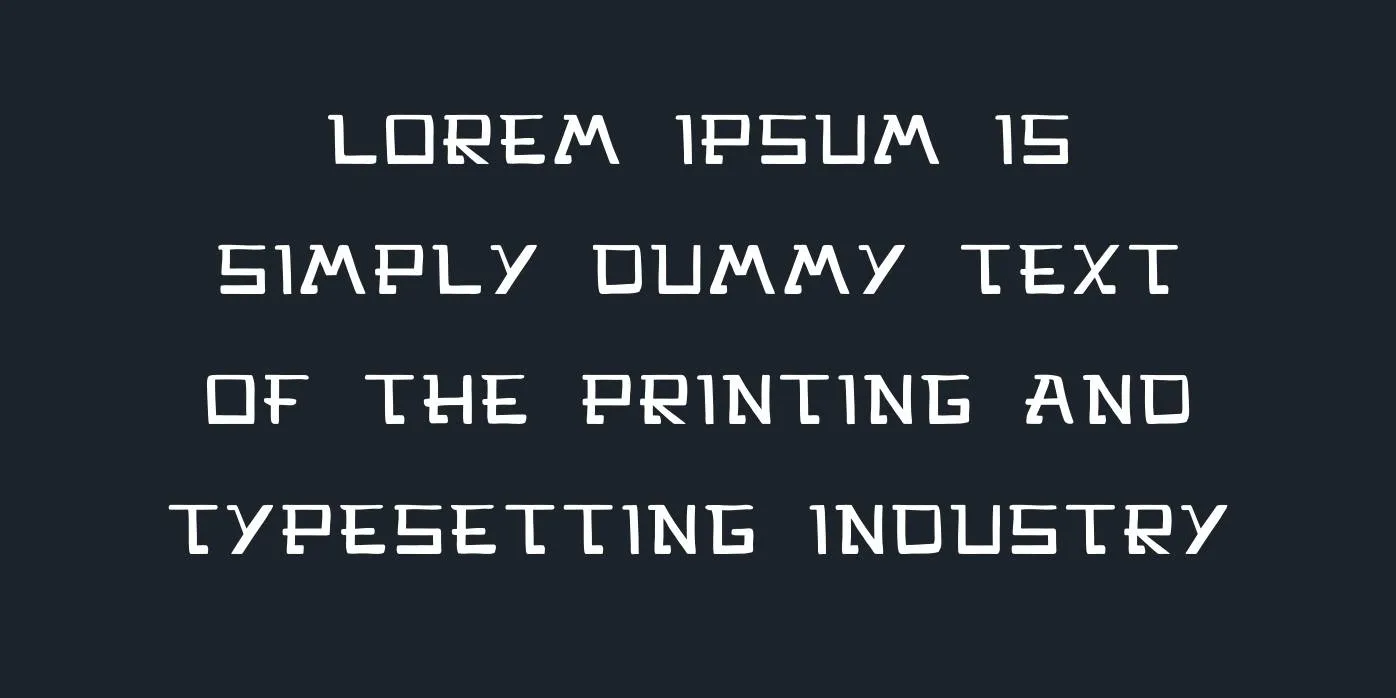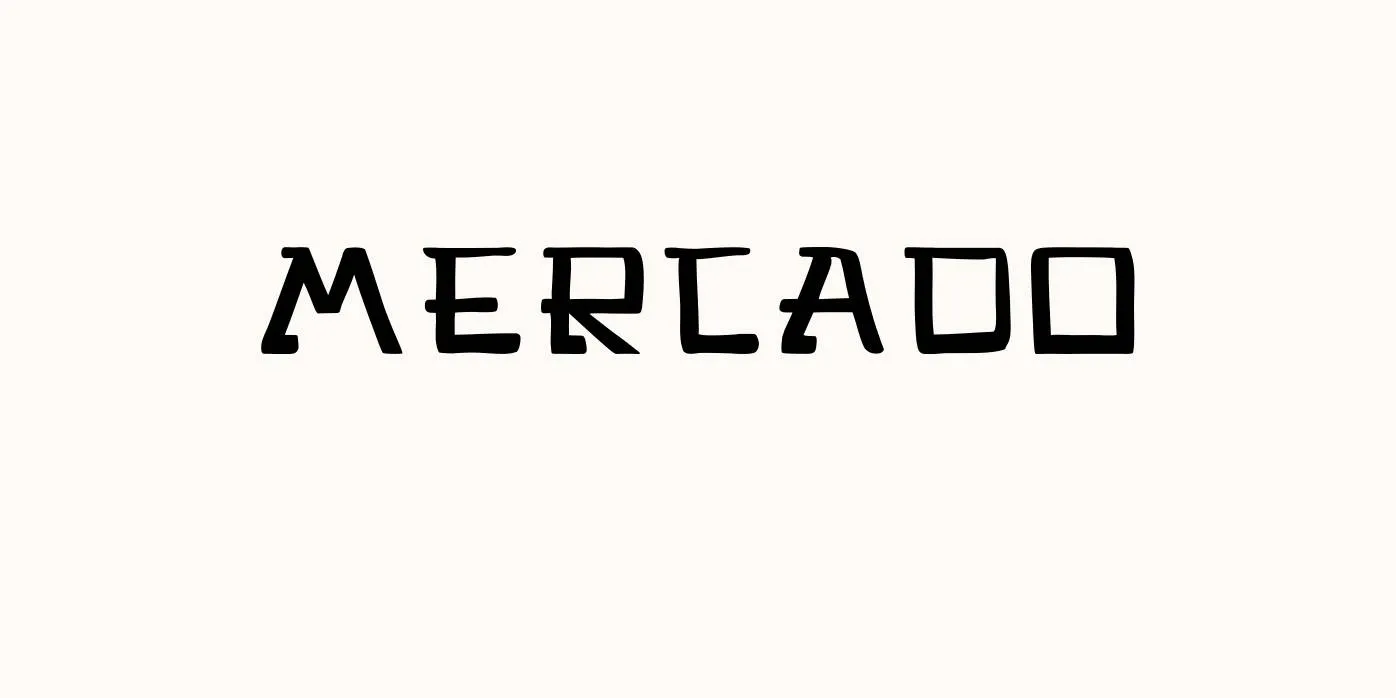
Mercado Font
Matthew Aaron Desmond created Mercado Font which belongs to a fancy family. It has nine different styles. The family includes 9 styles which are light, bold, regular etc. Because of this wide range of styles, it has a lot of features.
Both fonts work well to generate a good mixture of styles. By using this pair, you can make many styles and designed.